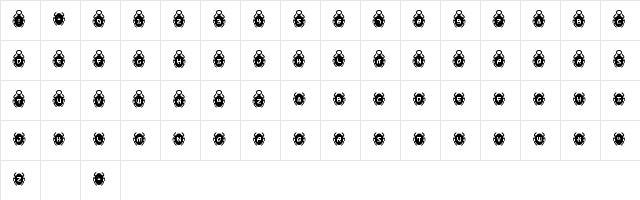
Scarab Solid Regular
Foundry: Monotype Typography
Designer: Monotype Type Drawing Office - Robin Nicholas, Patricia Saunders 1982
Design Context for Scarab Solid
Scarab Solid is a composed and adaptable typeface that performs quietly and consistently across a wide range of design contexts.